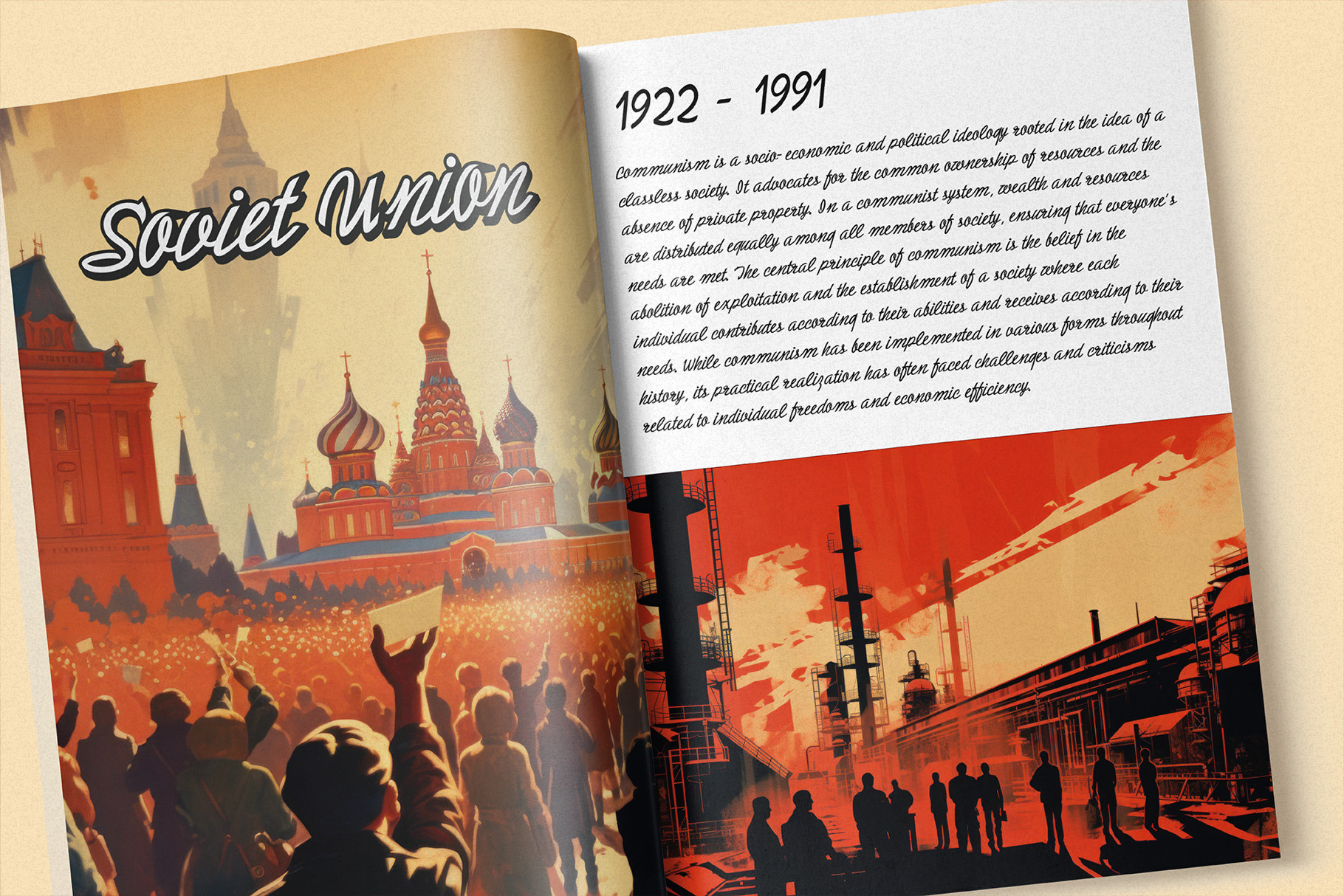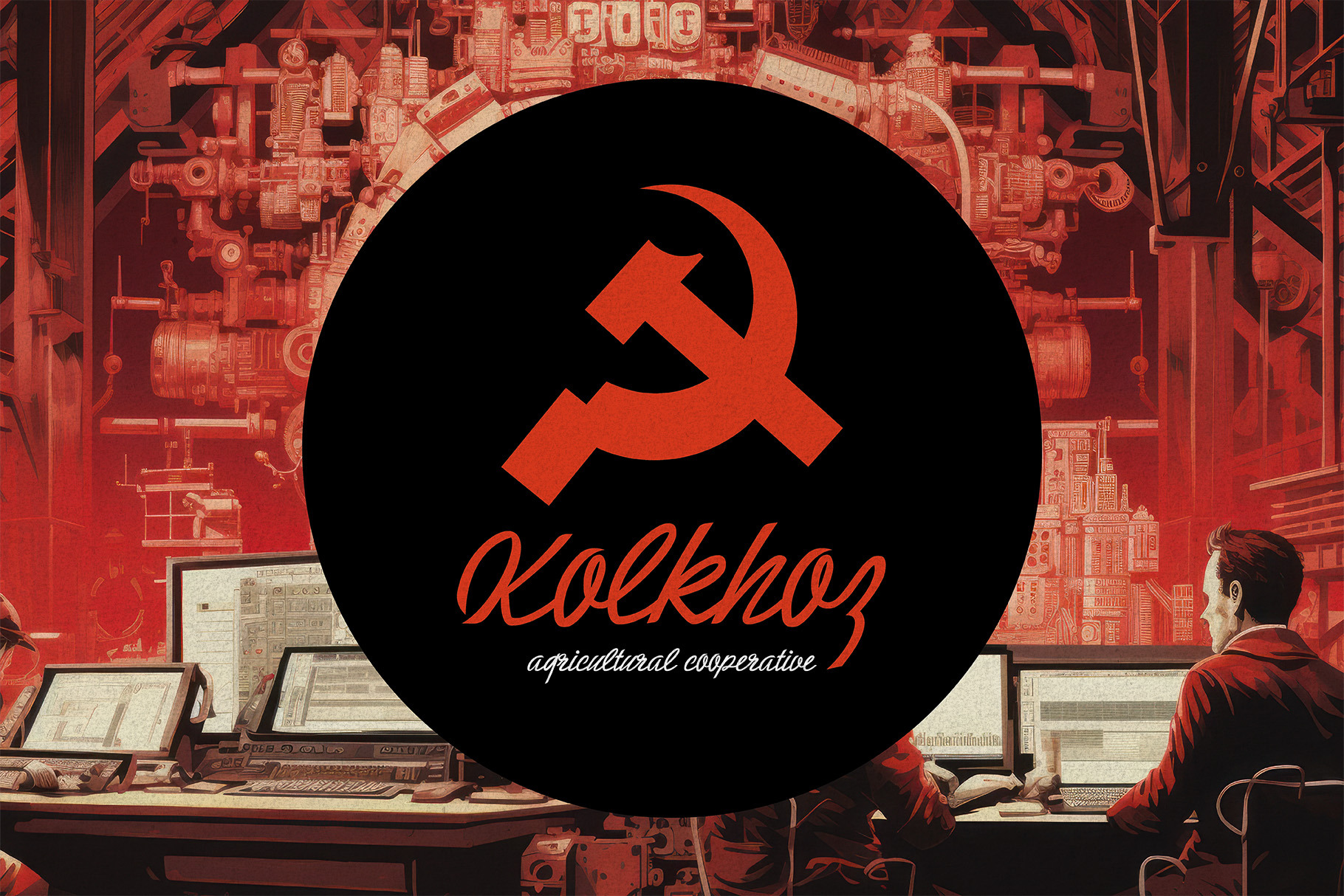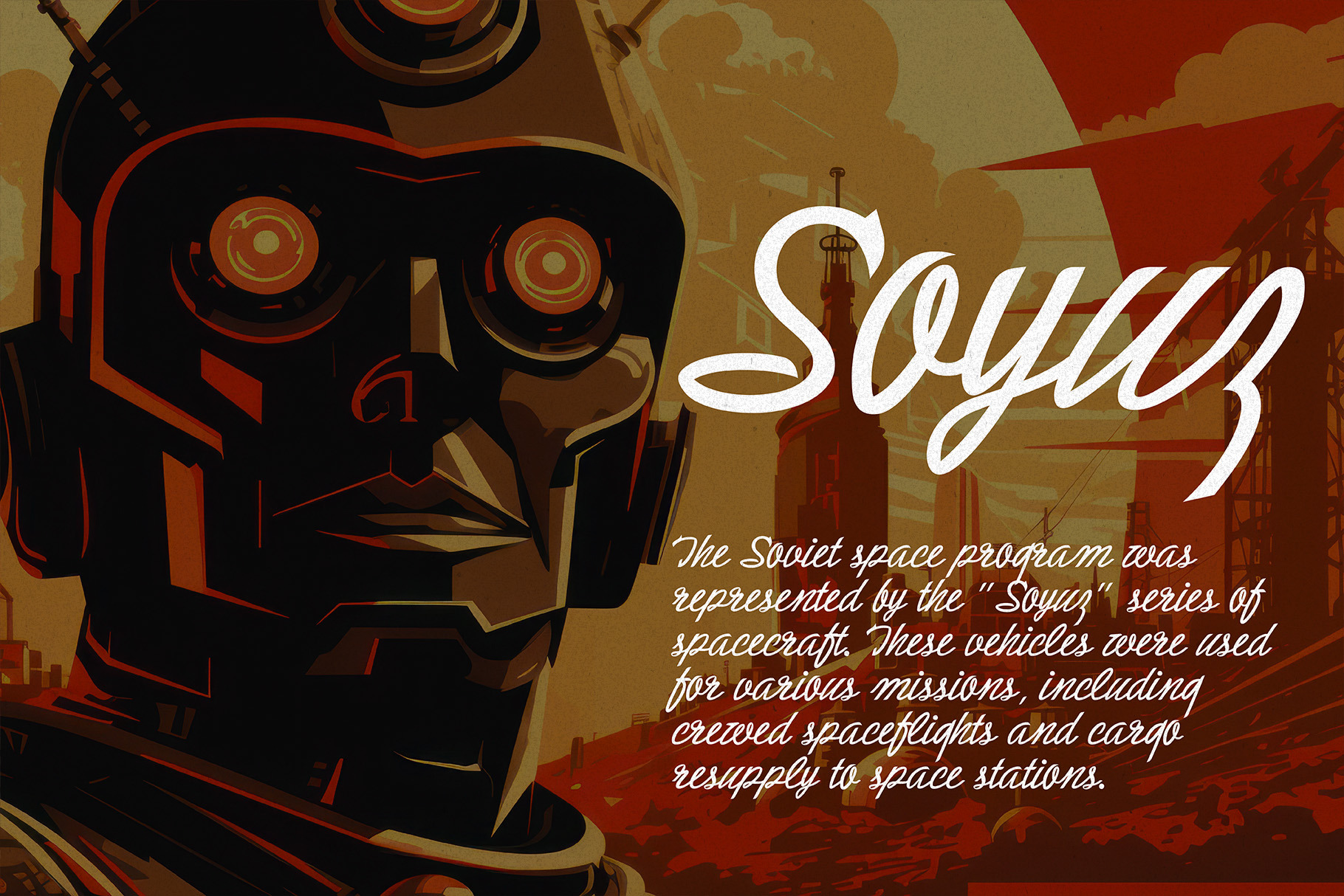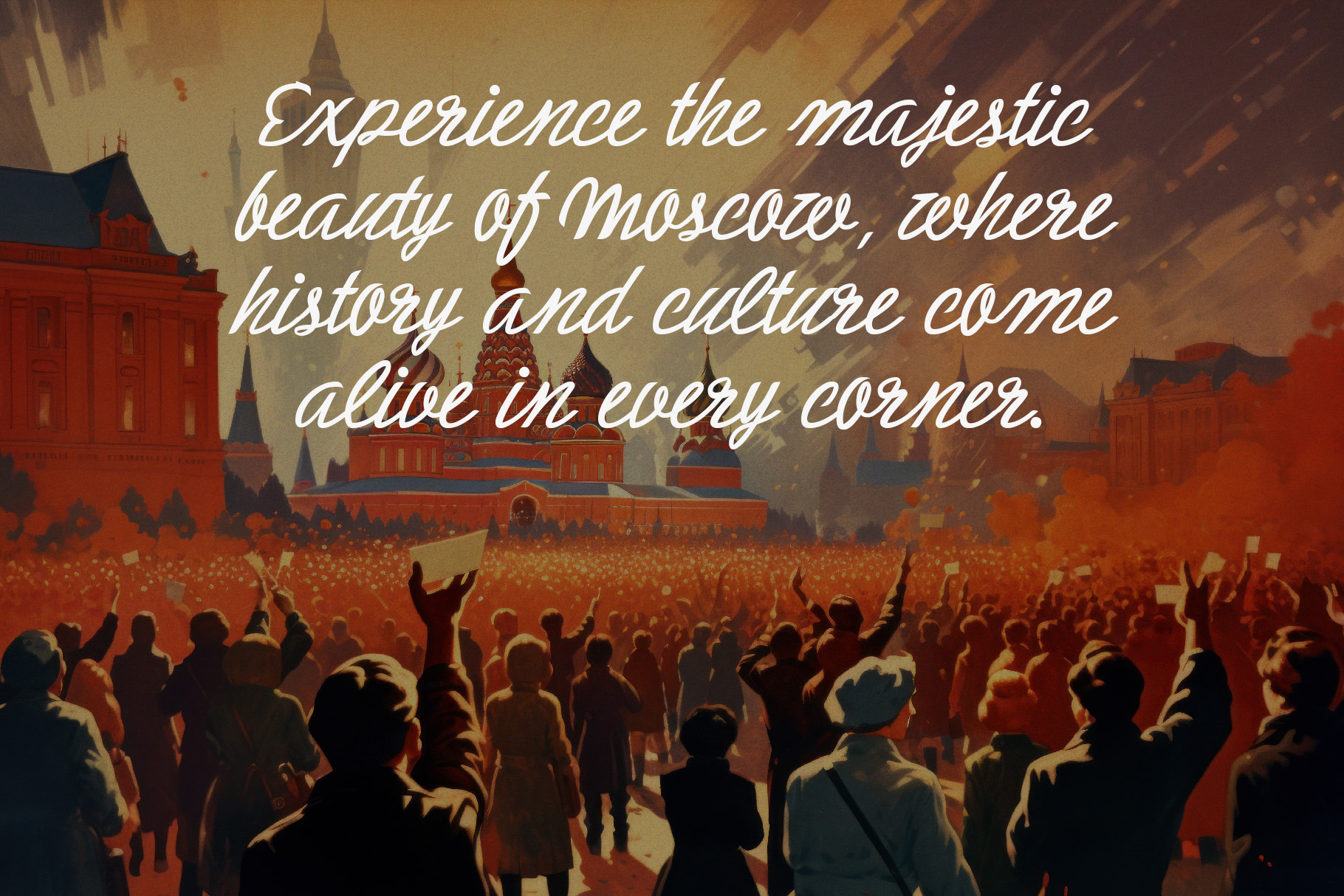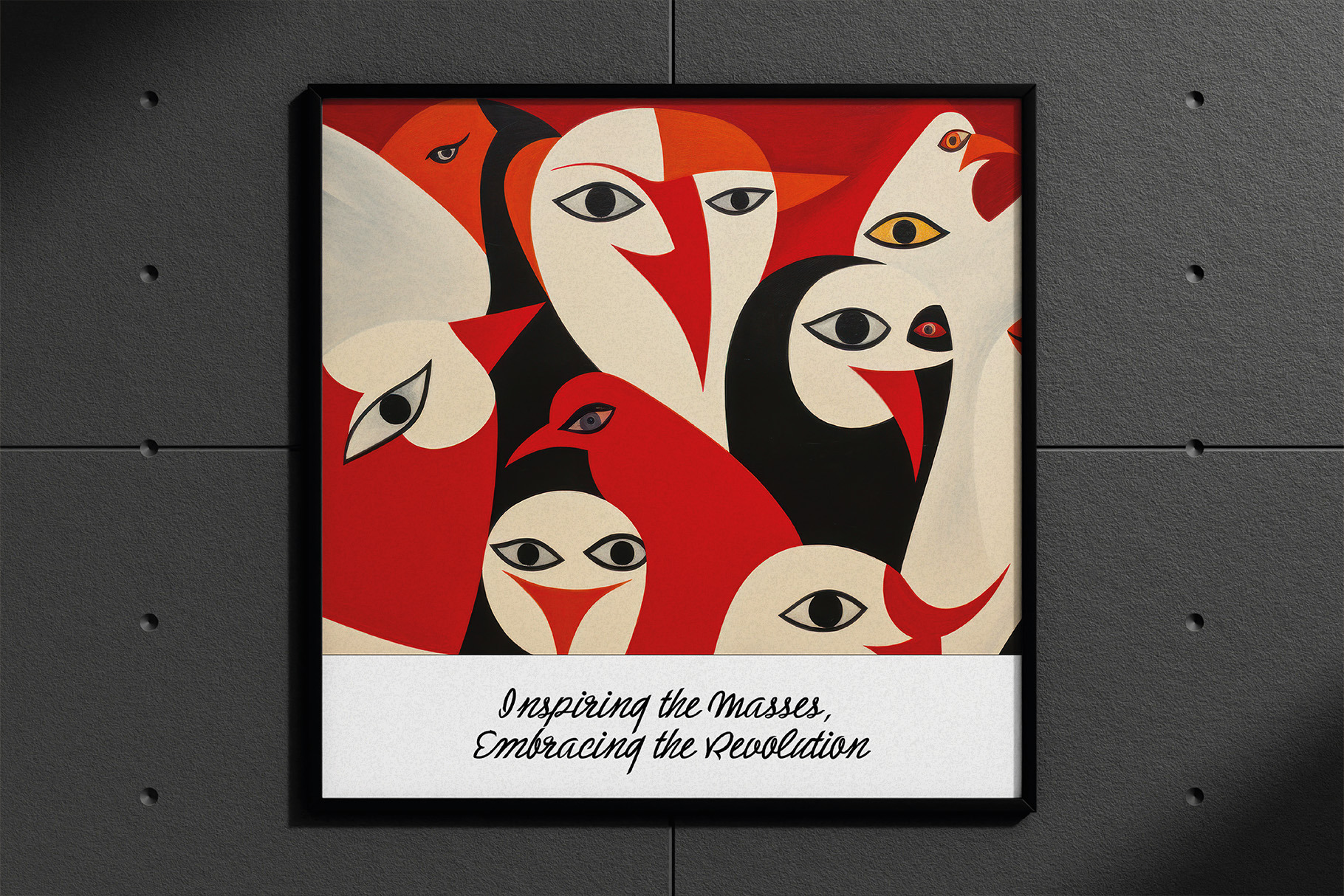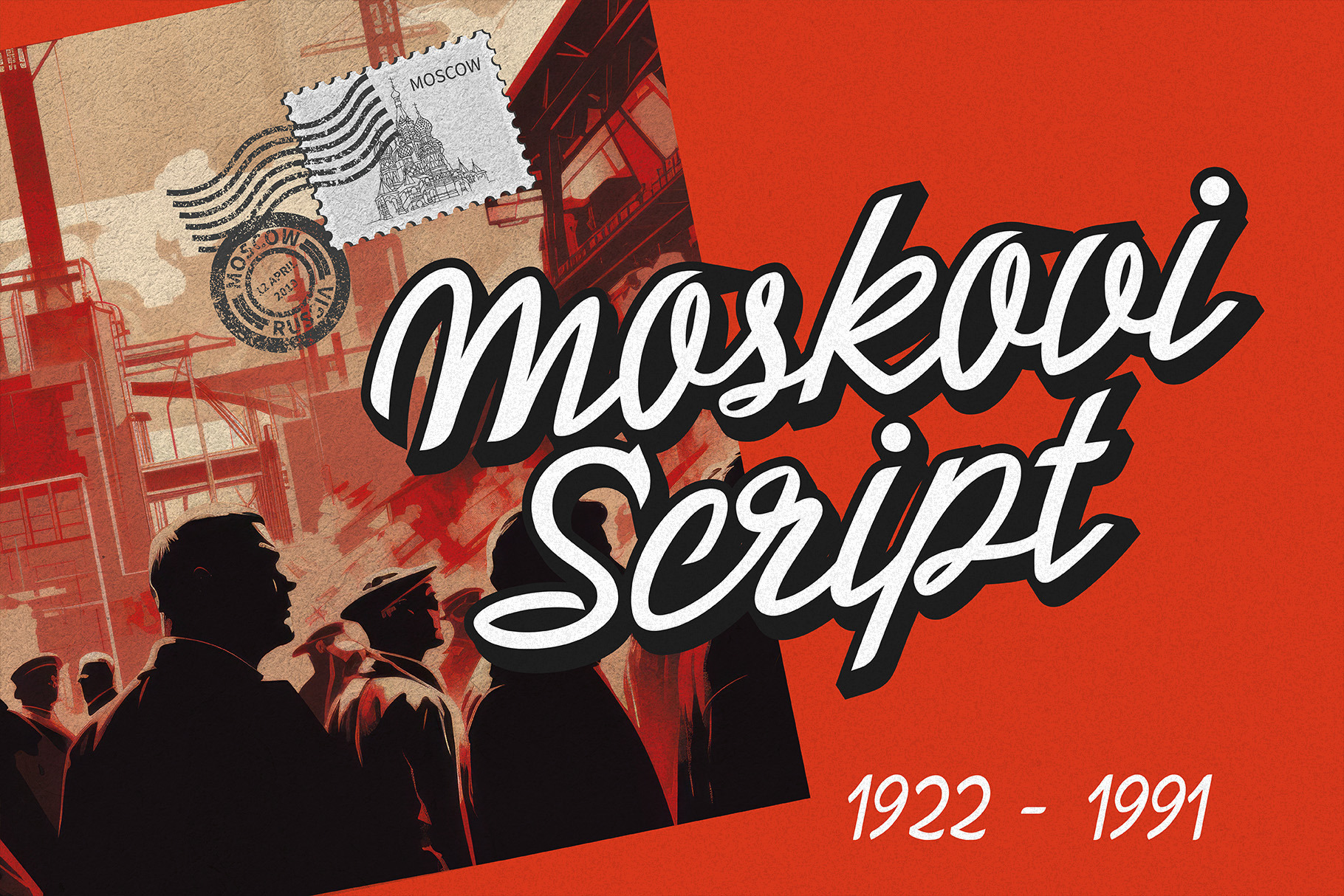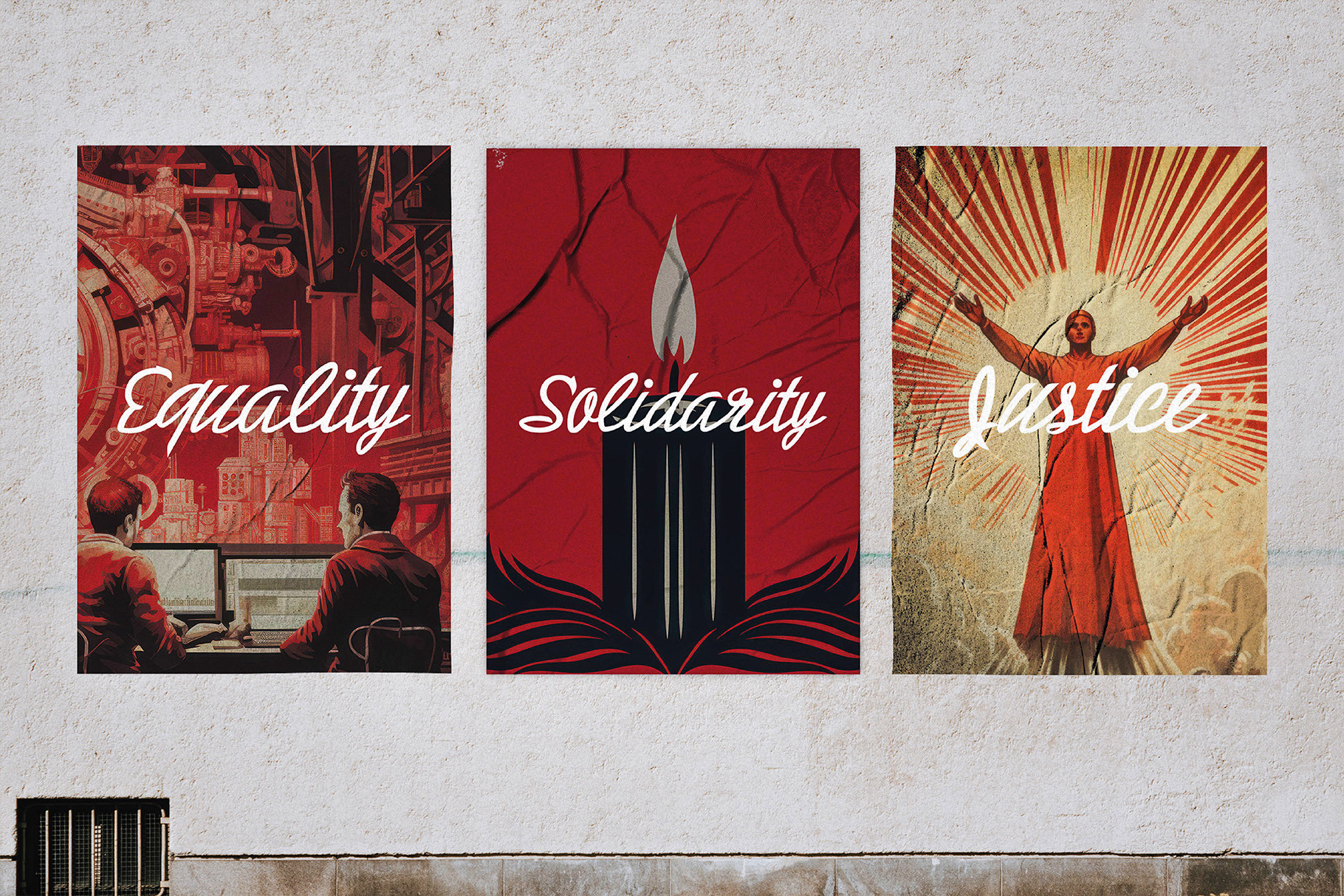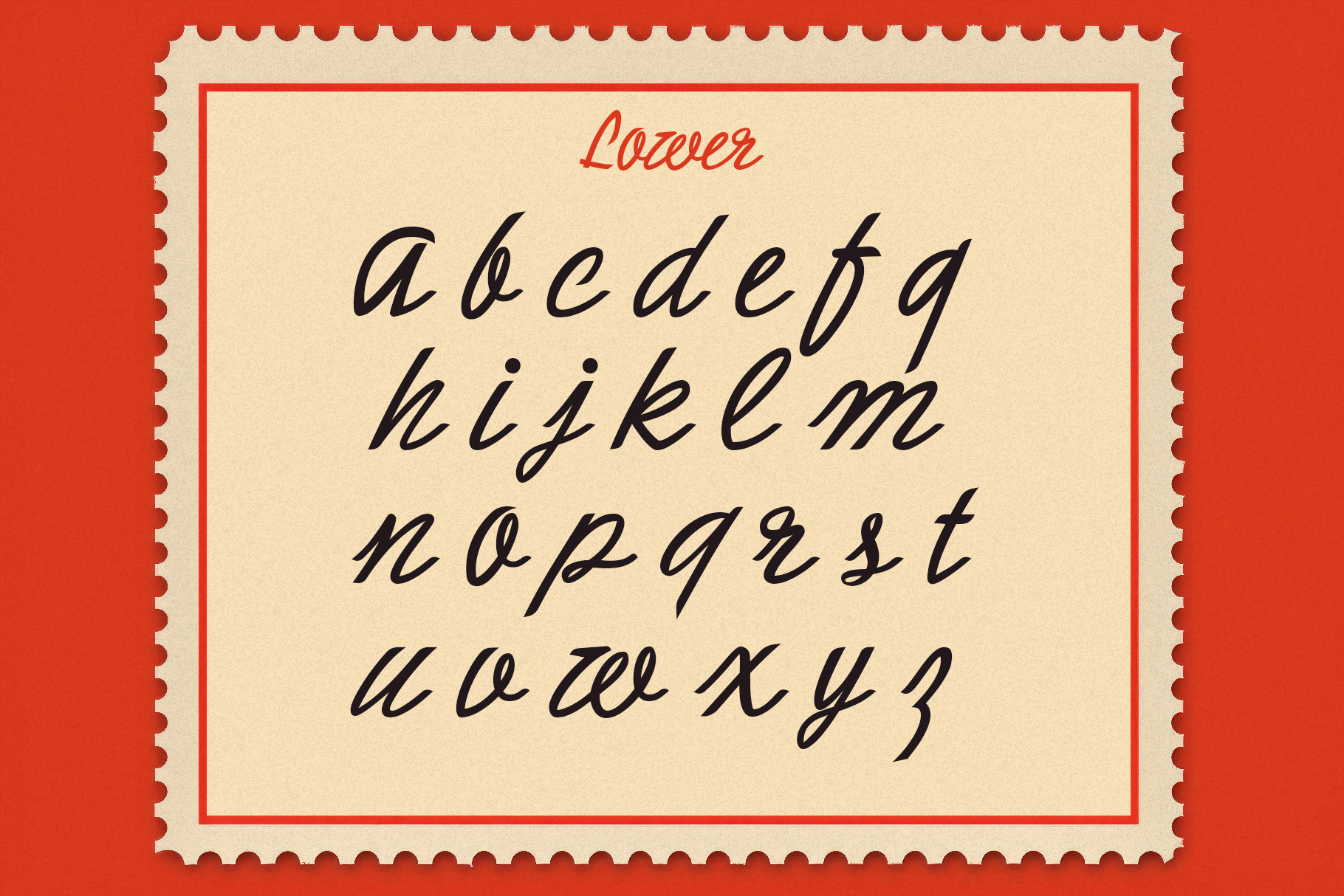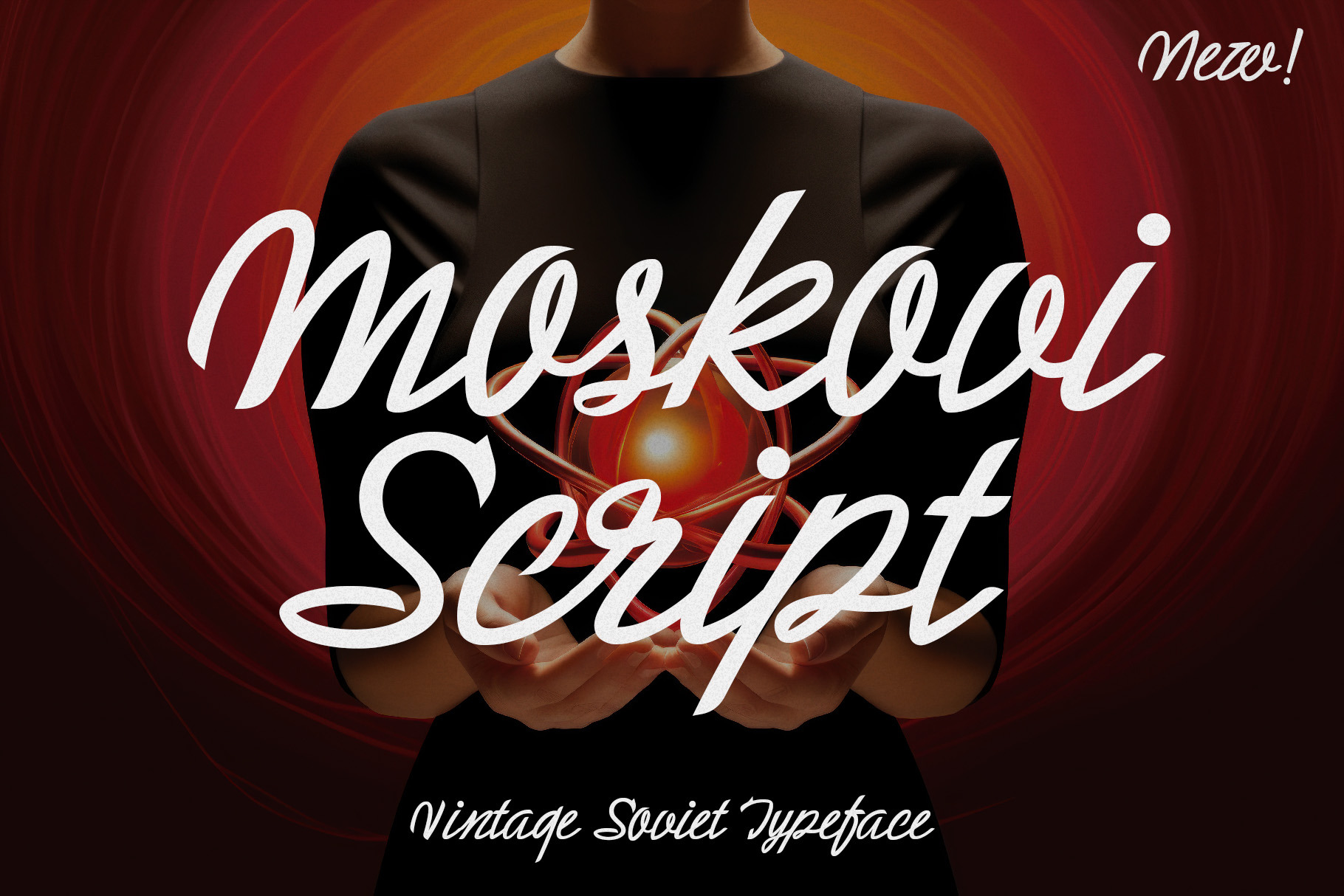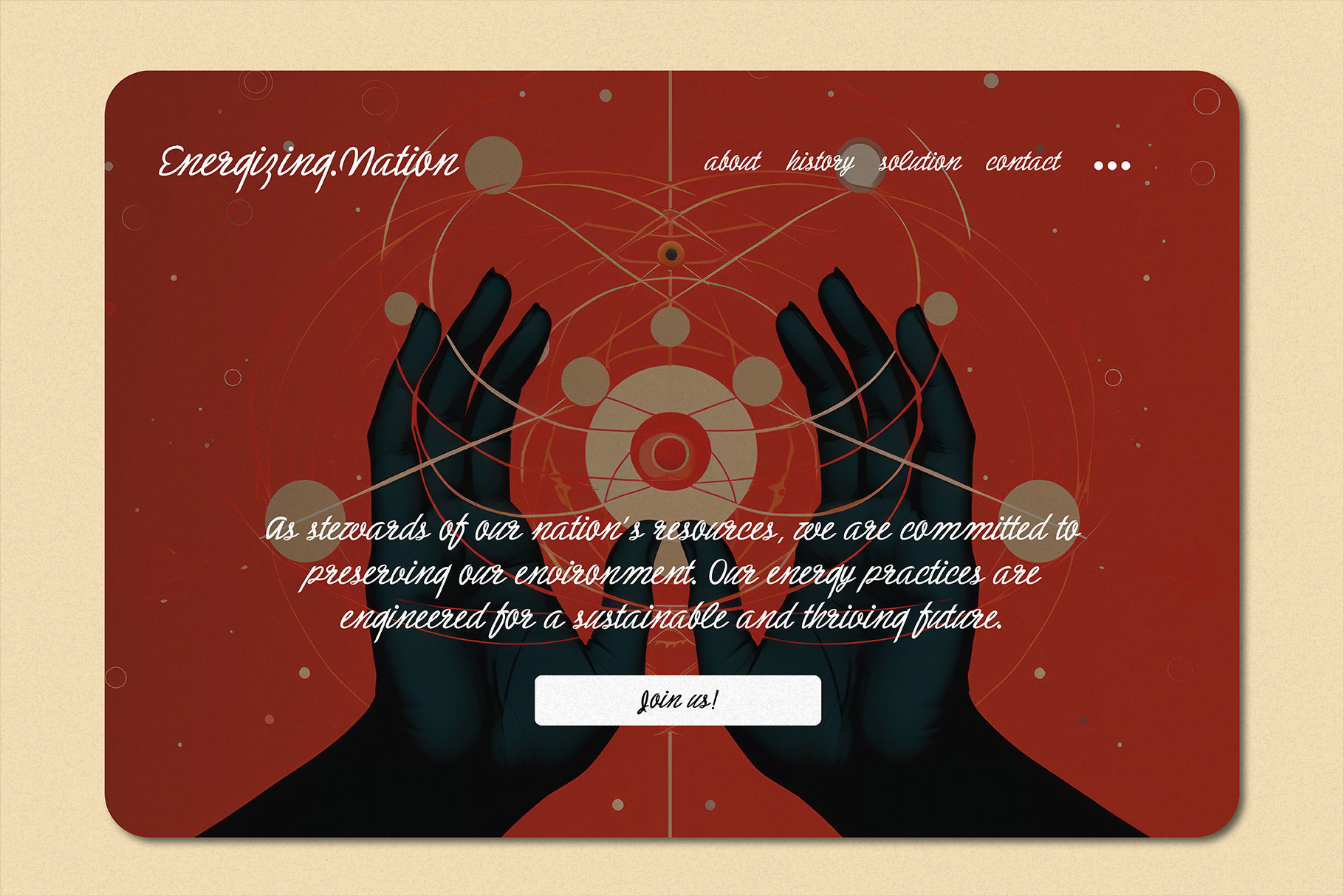
Step into a world of intrigue and bold design with Moskovi Script, a Soviet-inspired typeface from HipFonts available exclusively at Creative Market. This font masterfully blends the powerful, industrial spirit of Cold War Russia with contemporary elegance, creating a versatile tool for designers seeking to make a statement. Each character in Moskovi Script tells a story of strength and secrecy, with sharp angles and fluid curves that echo the architectural precision of Soviet engineering. This unique balance between rigid structure and graceful movement makes it perfect for projects that demand both historical depth and modern appeal. Imagine your headlines and logos infused with the mysterious charm of espionage era design. Moskovi Script brings that cinematic quality to branding, packaging, editorial layouts, and digital interfaces. It works exceptionally well for vintage themed projects, political commentary designs, or any creative work needing a touch of dramatic historical flair. Available now at Creative Market, Moskovi Script includes extensive character support, ligatures, and alternates to give you full creative control. Whether you are designing for print or web, this font delivers professional results that stand out. Join the global community of designers who trust Creative Market for unique, high quality typography. Discover Moskovi Script and countless other exclusive fonts at creativemarket.com, where exceptional design assets meet unlimited creative potential.